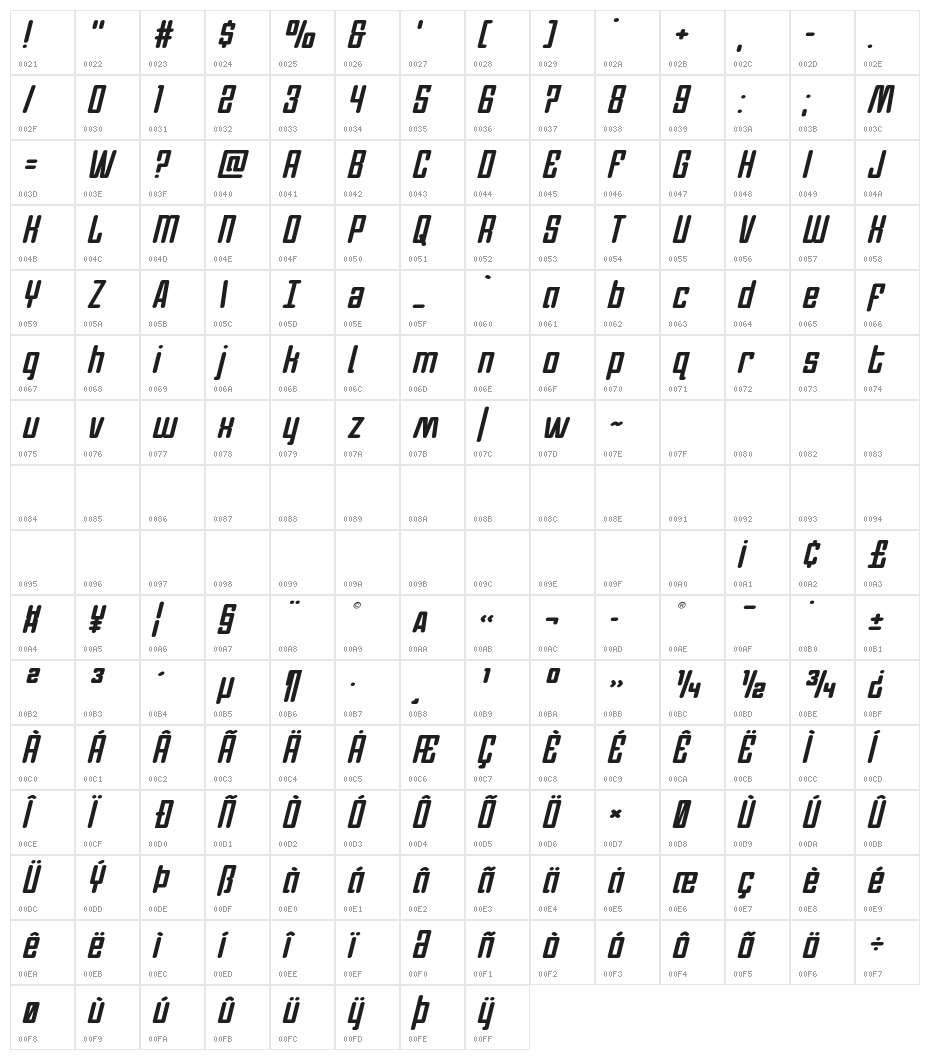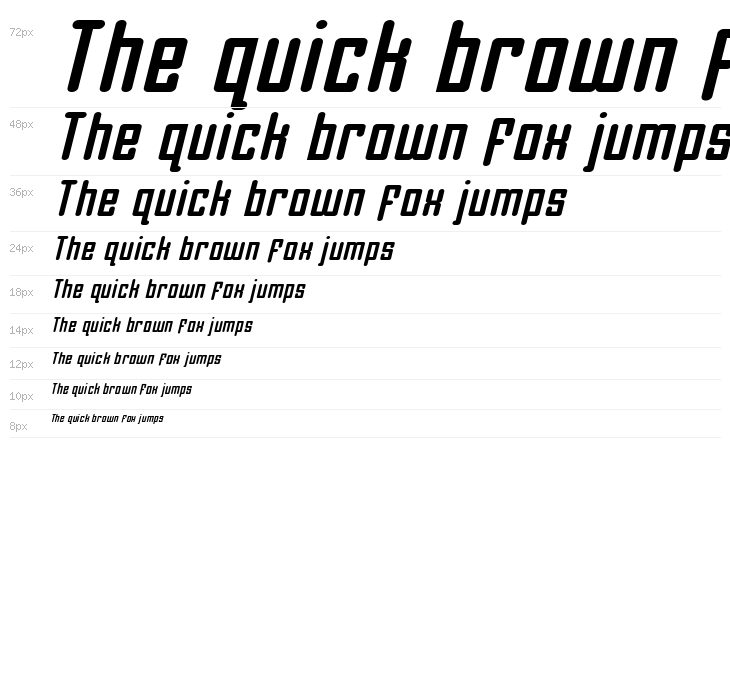
Darklighter Italic Font
Darklighter Italic Description
This font features a bold and italicized style with a modern, futuristic feel. The characters are slightly condensed, giving it a sleek and streamlined appearance. The strokes are consistent in thickness, providing a medium contrast that enhances readability while maintaining a distinct, dynamic look. The angular design of the letters adds a sense of movement and energy, making it suitable for projects that require a contemporary and edgy aesthetic. The font includes a full set of uppercase and lowercase letters, numbers, and a variety of special characters, ensuring versatility for different design needs.
| Proposed Projects | Ideal for branding, advertising, posters, and digital media that require a modern and energetic look. |